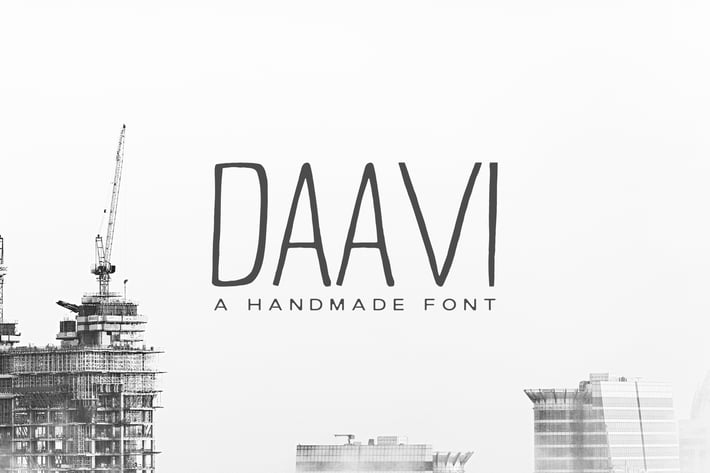
Daavi Handmade Sans Serif Font
Daavi Handmade Sans Serif Font is a modernistic handmade font written with soft hand to create a finest quality font. Daavi looks perfect for greeting cards, branding materials, wedding postcard, business cards, quotes, posters, small business, book covers, stationery, marketing, magazines and more.
Daavi Font Features:
- Uppercase Multilingual Letters
- Lowercase Multilingual Letters
- Non English Characters ( Latin Supplement )
- ABCDEFGHIJKLMNOPQRSTUVWXYZ
- abcdefghijklmnopqrstuvwxyz
- 0123456789
- !"#$%&'()*+,-./:;=?^_`|~
- ÀÁÂÃÄÅÈÉÊËÌÍÎÏÑÒÓÔÕÖØÙÚÛÜÝ
- àáâãäåèéêëìíîïñòóôõöøùúûüý